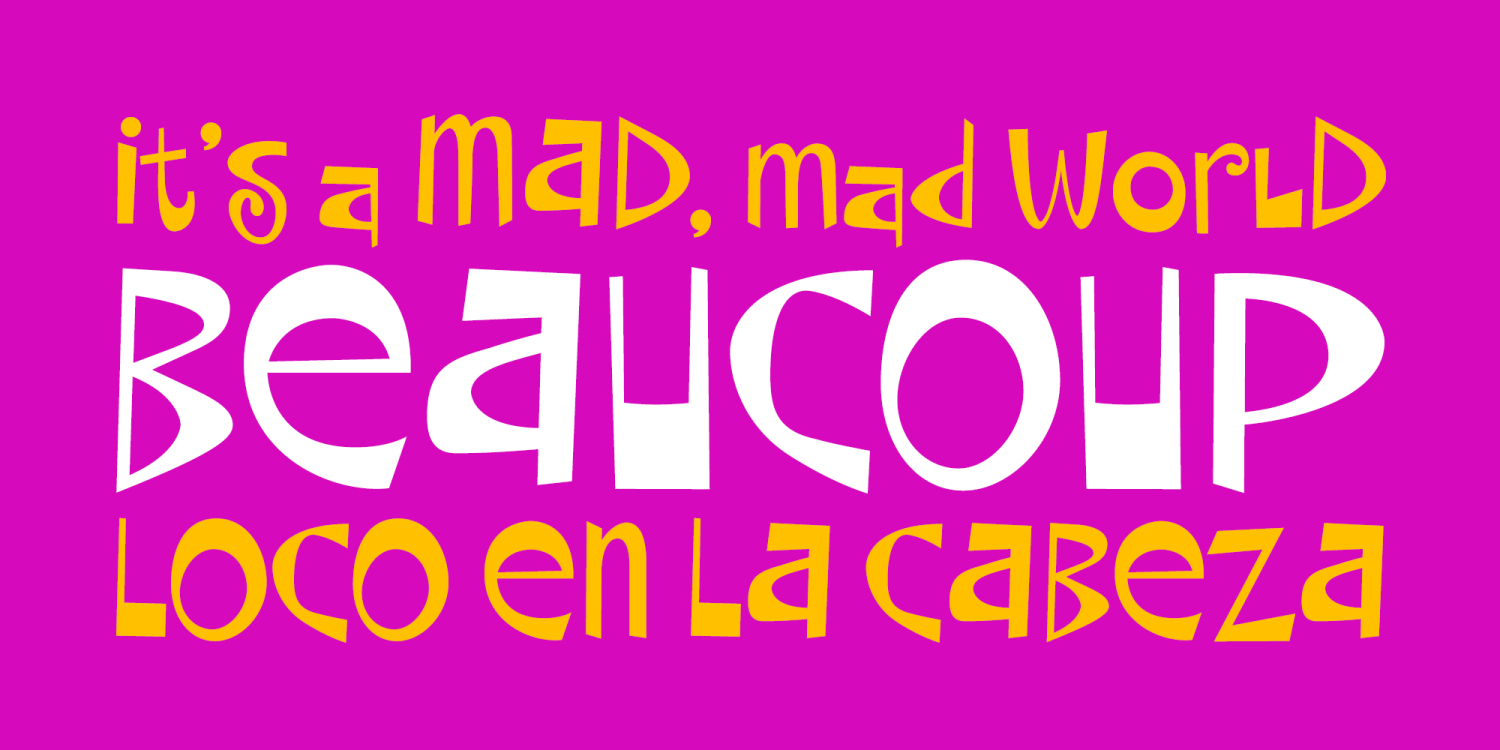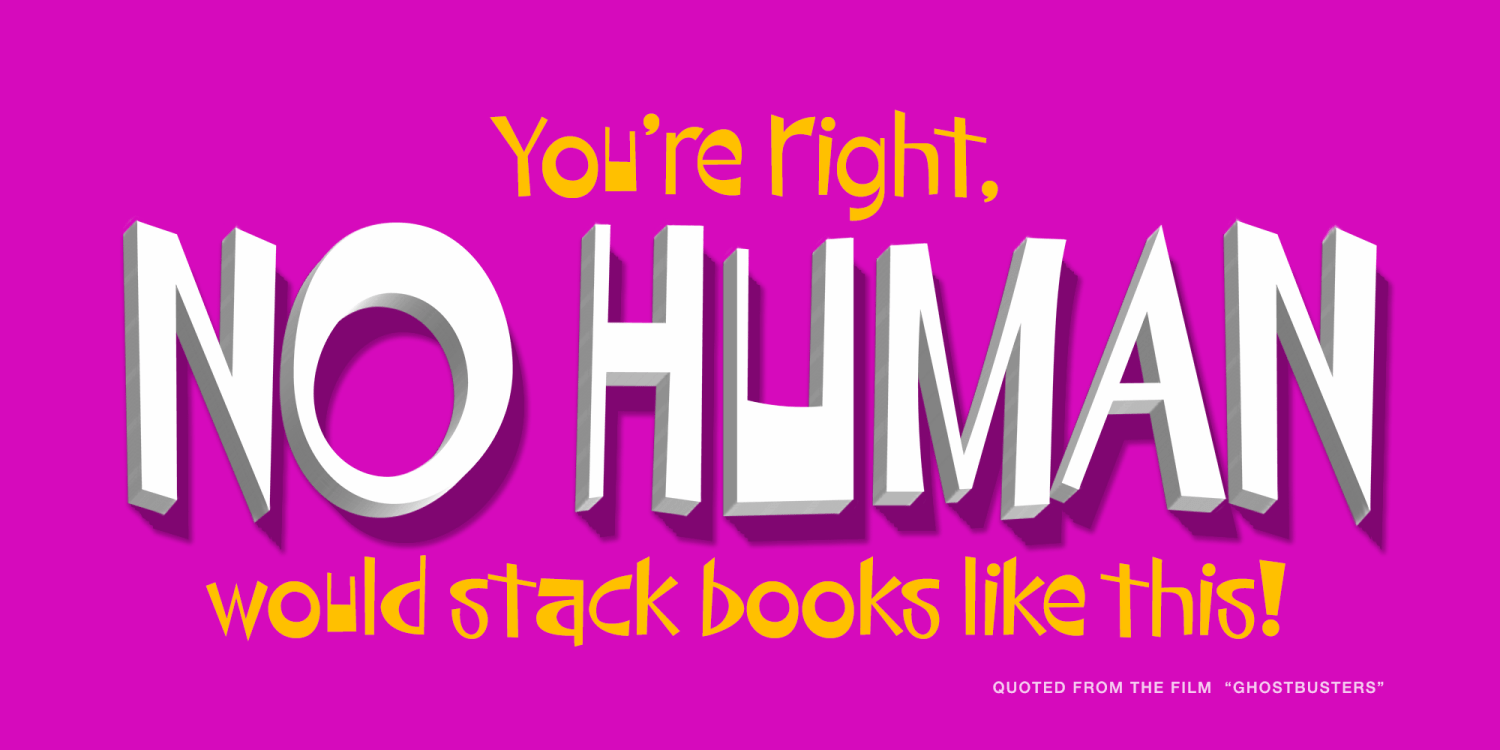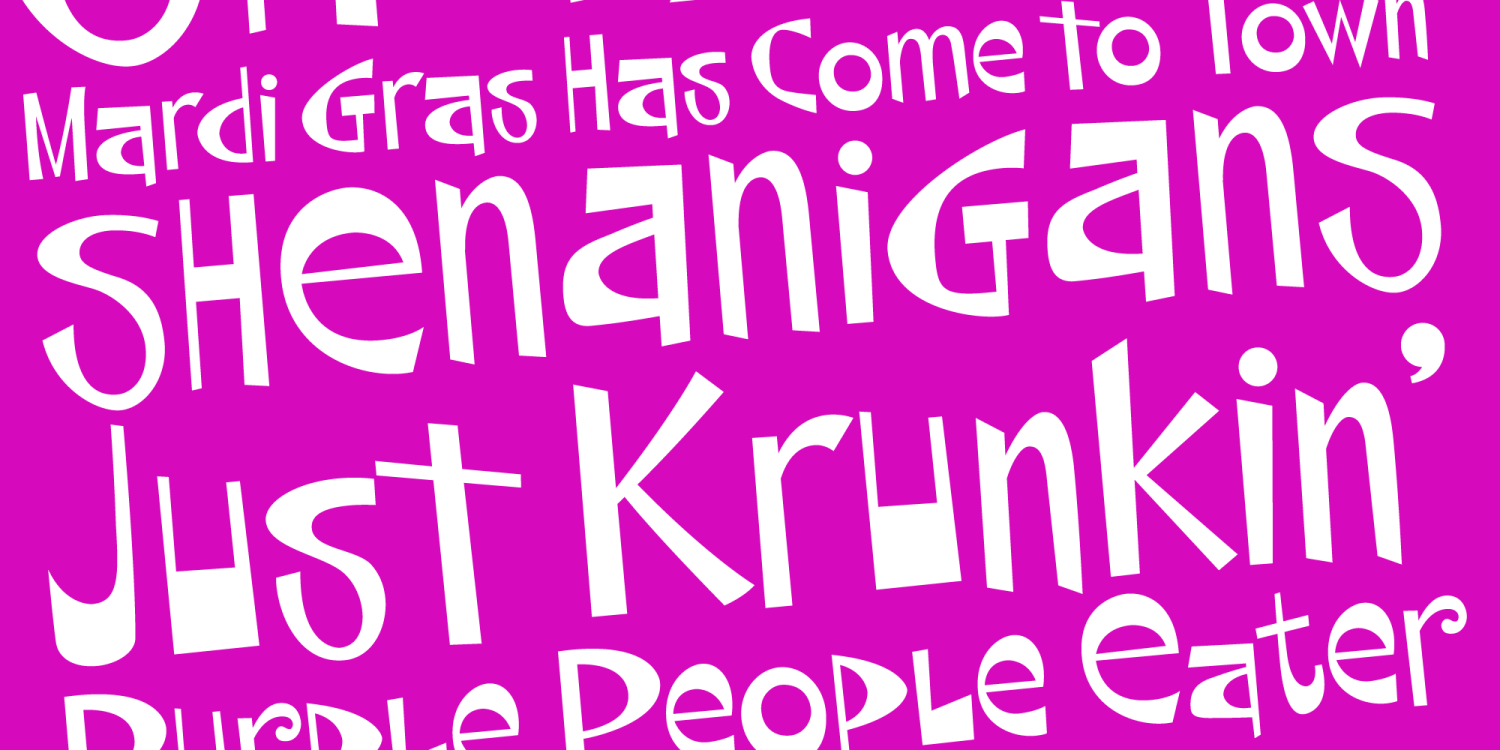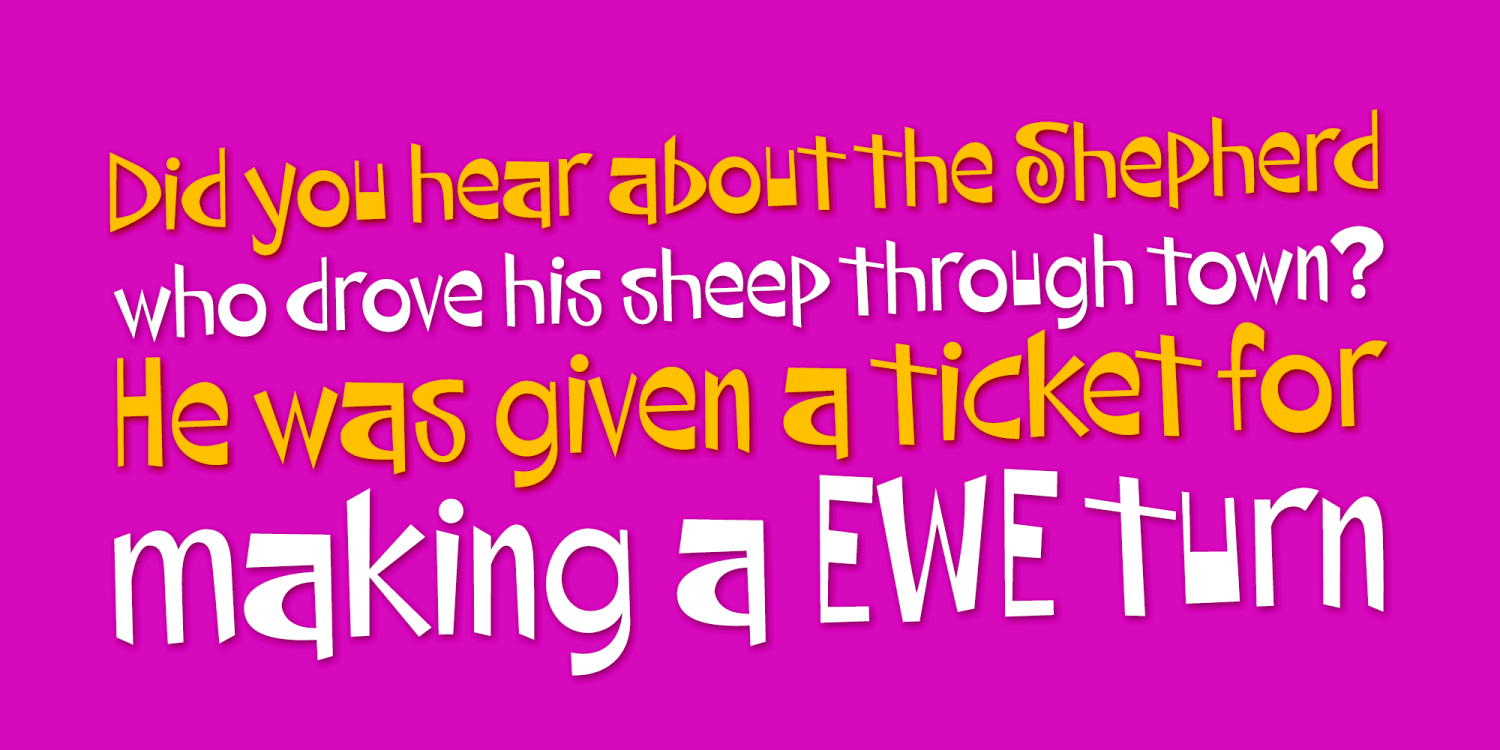
Beaucoup
Font Family by Pink Broccoli
A totally off the wall crazy sans serif display type, Beaucoup started as a digitization of a film typeface called Bippie by Facsimile Fonts. From there, it was taken and built out to an extensive character set ready to take you for a wild ride.
Completely loco, yet somehow still easily legible, this typographic wildchild is dying for you to get your grubby little hands on it and take it for a spin!